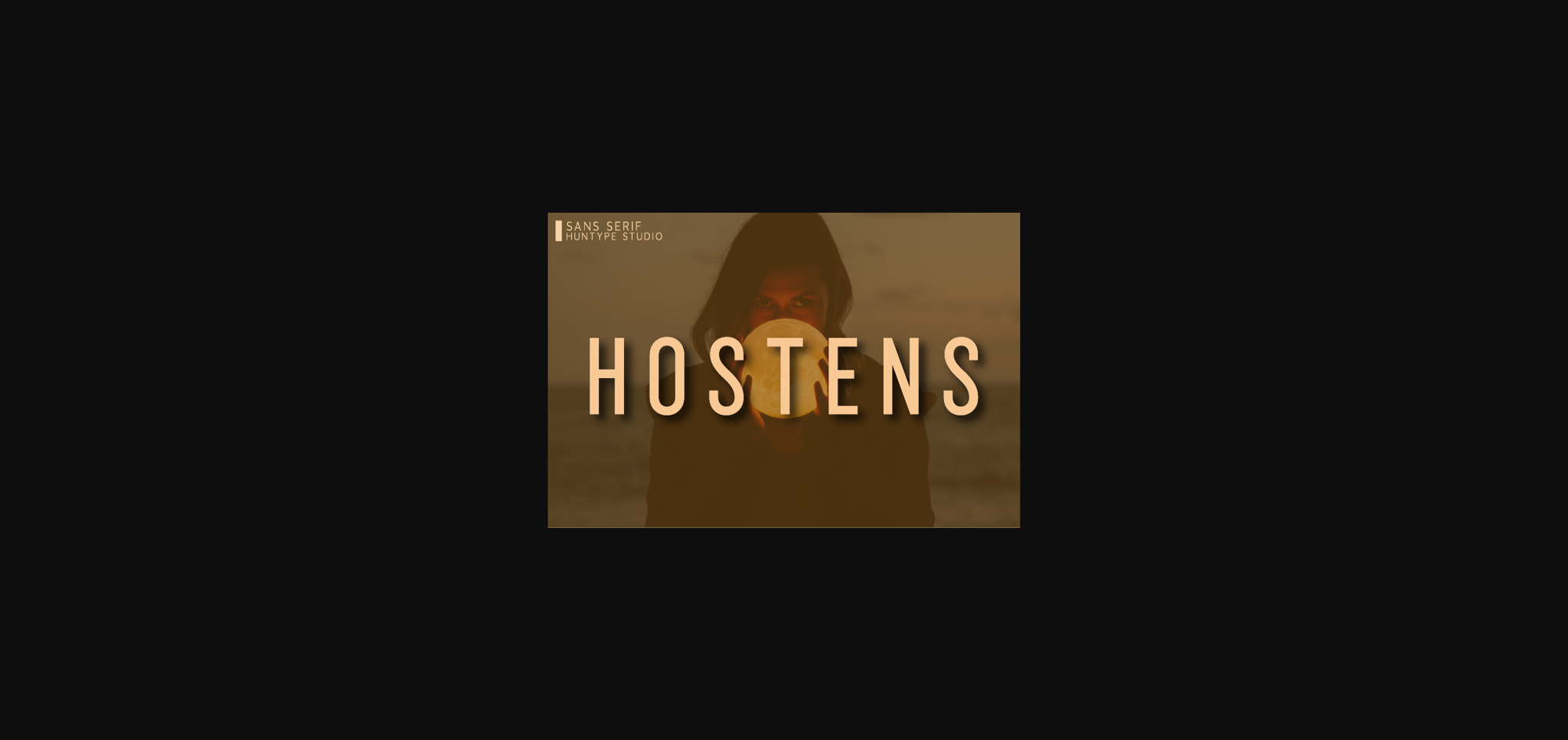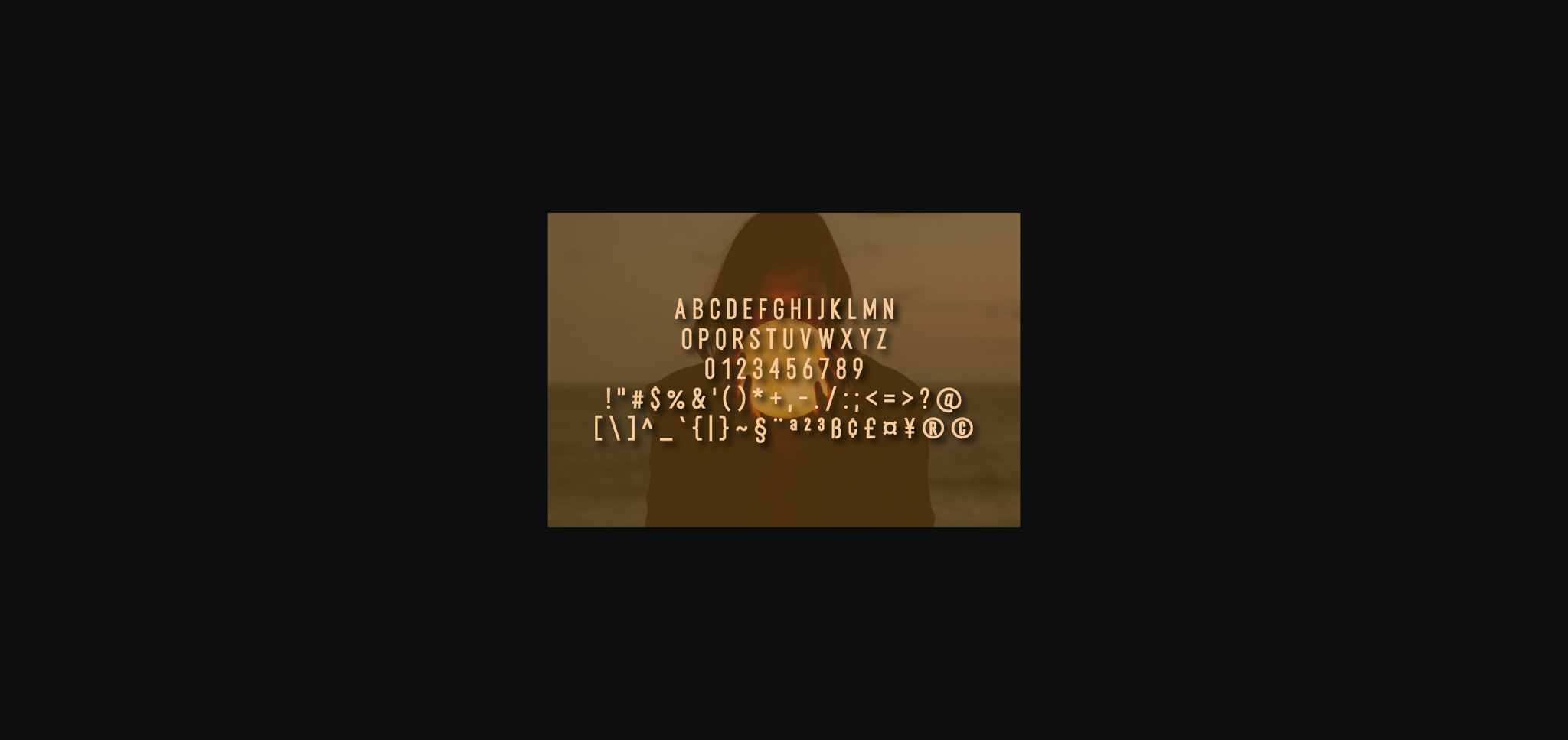
About Hostens Font
Hostens is a modern sans serif font. Suitable to a wide variety of designs due to its neat and simple style, Hostens has the potential to become your favorite go-to font, no matter the occasion!